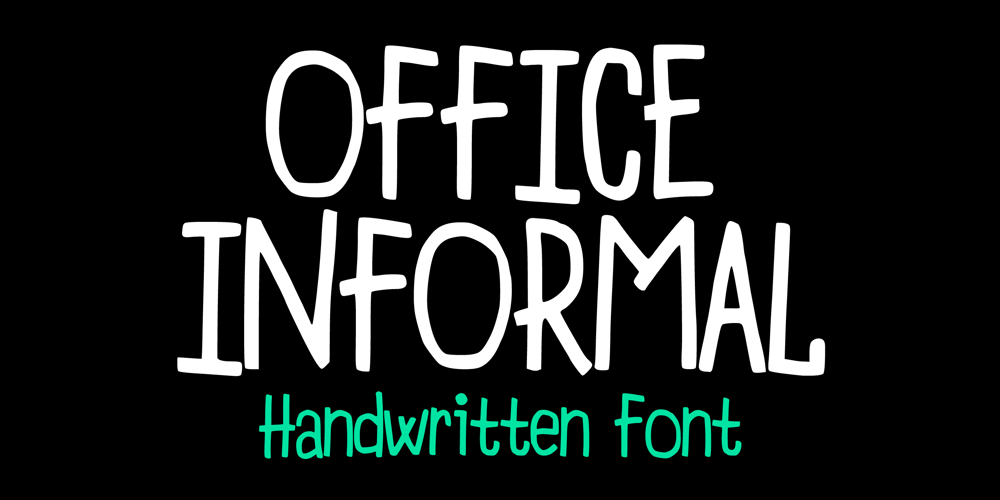
Office Informal
Office Informal Font Family was designed by Gabriel Valentinus and published by Mvmet. Office Informal contains 1 styles and family package options. Office Informal is a playful daily handwritten font. It will elevate a wide range of design projects to the highest level. You can use this font for many design ideas such as daily typing works, blog writing, stickers, t-shirt designs, amazing logo designs, magazine or book covers, comics, cartoon drawings, and many more. This font will add a super cool touch to your designs!